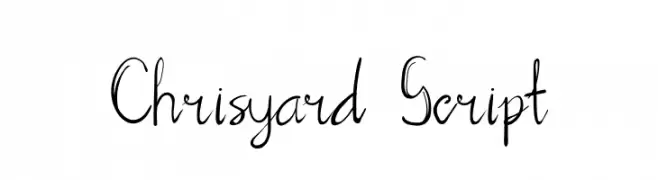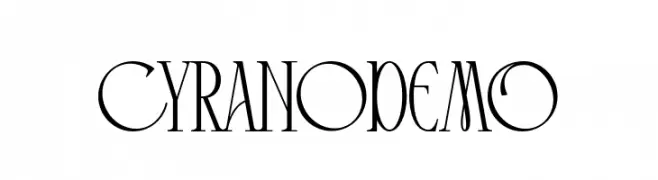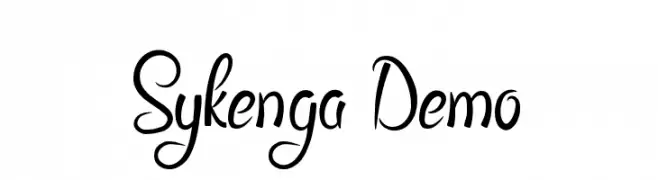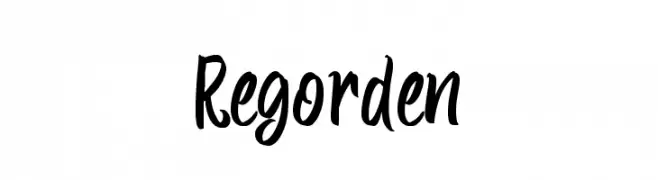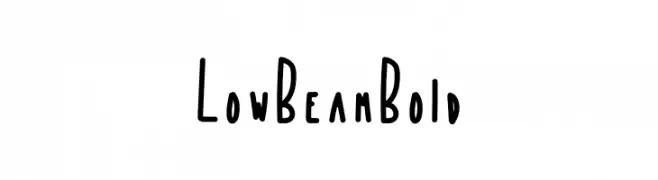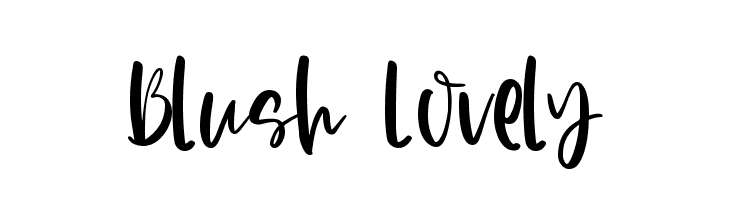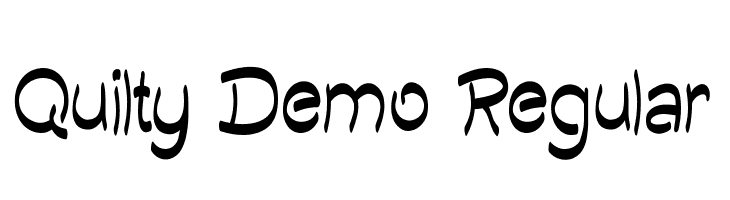
A bold, italicized font with a modern, dynamic style.
An elegant and artistic script font with flowing, calligraphic letterforms.
A playful, casual handwritten font with smooth, flowing lines and a friendly appearance.
An artistic and elegant font with geometric elements and elongated letterforms.
A playful, hand-drawn font with irregular strokes and a whimsical style.
A modern, elegant script font with flowing curves and balanced contrast.
A bold, playful handwritten font with a dynamic and friendly style.
A bold, expressive handwritten font with dynamic strokes and playful elegance.
A bold, playful handwritten font with tall, narrow letters and a casual style.
A bold, graffiti-inspired font with a playful and energetic style.